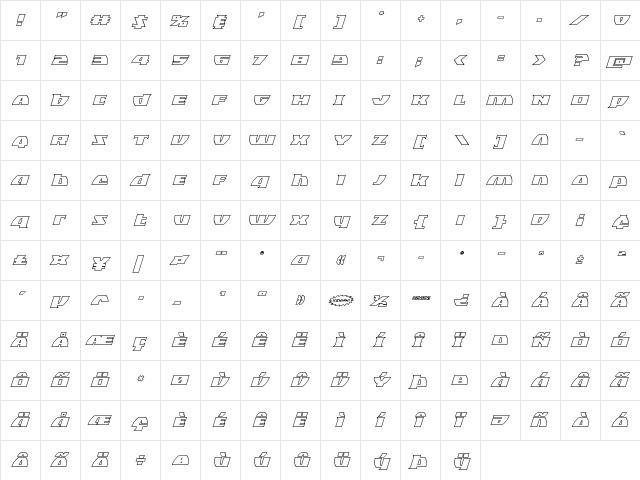
Black Bishop Outline Italic Outline Italic
Design Context for Black Bishop Outline Italic Typeface
Black Bishop Outline Italic is built around its visual character rather than neutral utility — its distinctive forms are designed to make an impression at display sizes. The slanted form adds forward momentum and visual energy.
Font Pairing: Pair with a clean neutral sans-serif for body copy to let Black Bishop Outline Italic's character lead without overwhelming the composition.
Pro Tip: Use Black Bishop Outline Italic exclusively at display sizes — it was designed to be seen, not read at length. Let a neutral companion handle body copy.